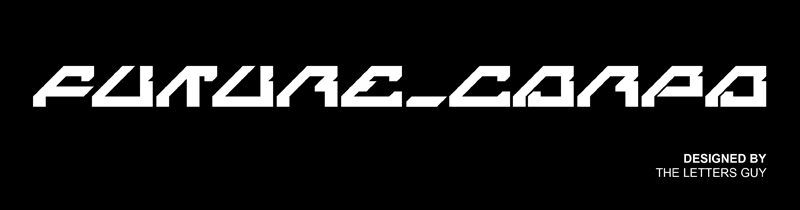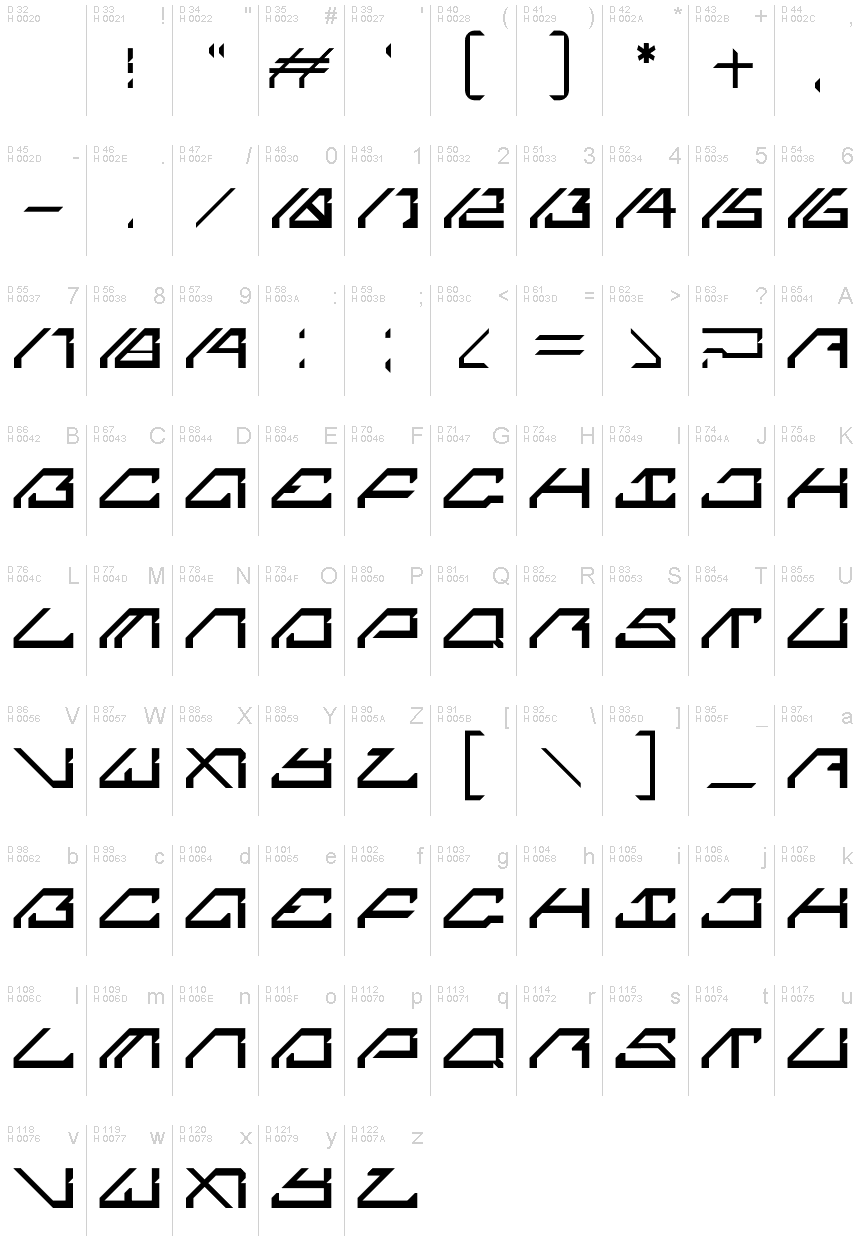
Future Corpo Light
Looking for a futuristic display font that screams modernity and innovation? Look no further than Future Corpo Light. Designed by The Letters Guy, this semi-light font features an extra-expanded width that makes it perfect for attention-grabbing headlines or display text. Whether you're creating a cutting-edge tech website or designing sleek branding materials for a forward-thinking company, Future Corpo Light is the perfect choice to convey your message of progress and innovation. With its unique style and eye-catching design, this font is sure to make any project stand out from the crowd.